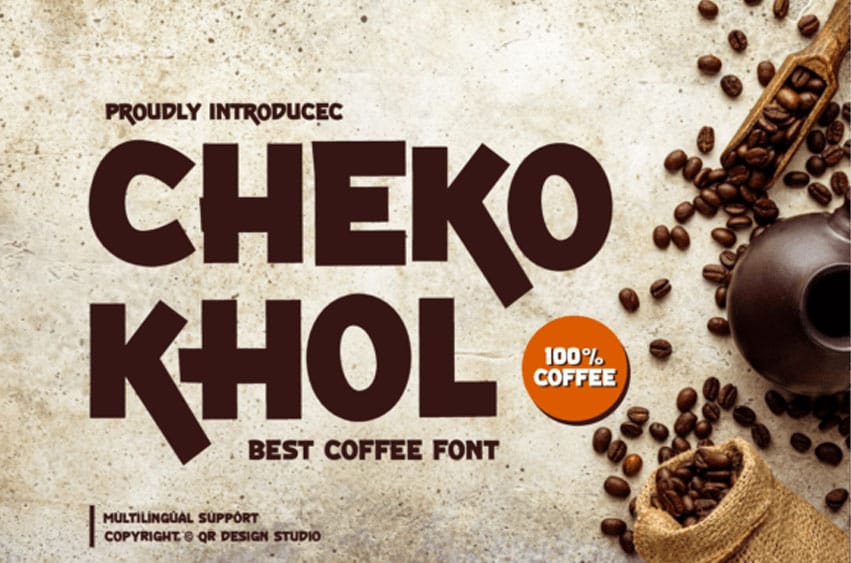
Cheko Khol Font is a cool and modern sans-serif font. Add it to your creative projects and enjoy the results!
This font is well-suited for a variety of contexts, such as print design, promotional materials, or magazine layouts.